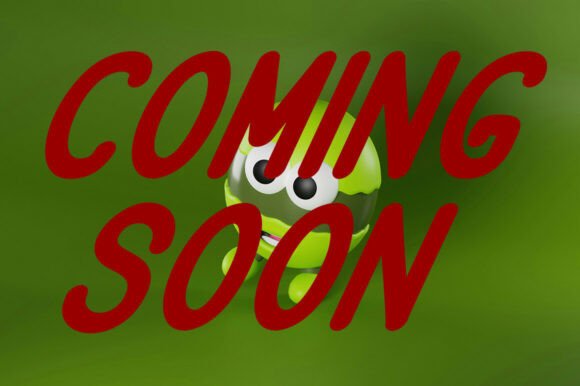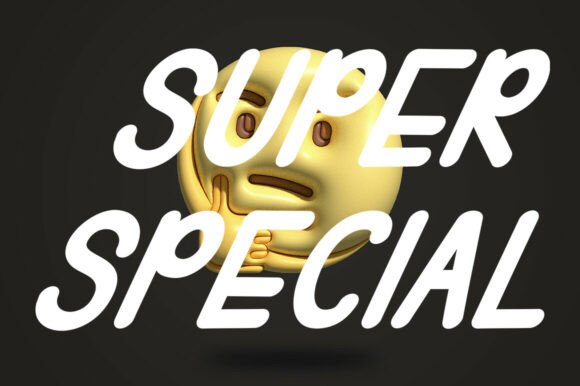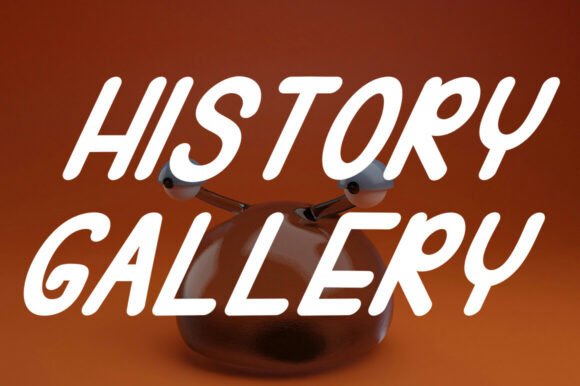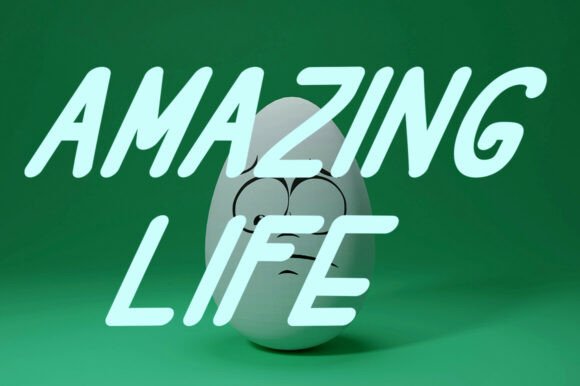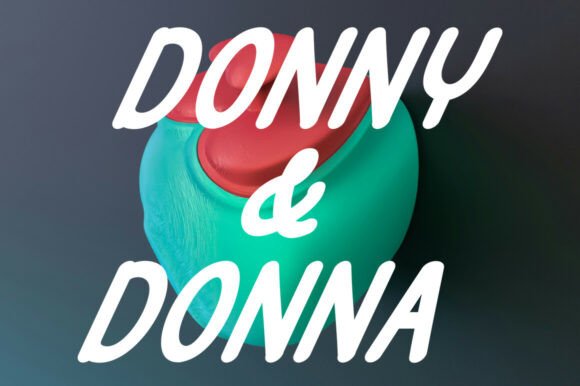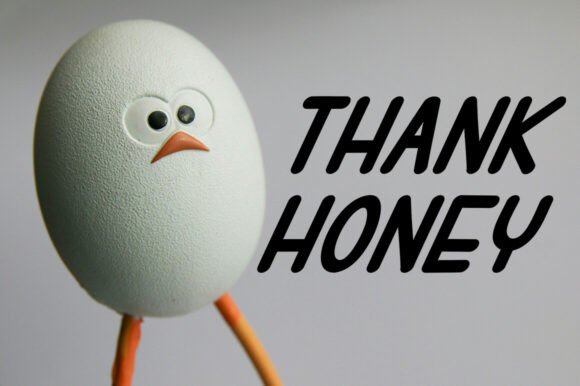
Introduction to Monotes Font
Monotes your favorite projects.
Key Features of Monotes Font
Why Choose Monotes Font?
Monotes Font offers exceptional quality and versatility, making it a valuable addition to your design toolkit. Whether you’re creating for personal projects or commercial use, Monotes Font delivers professional results.